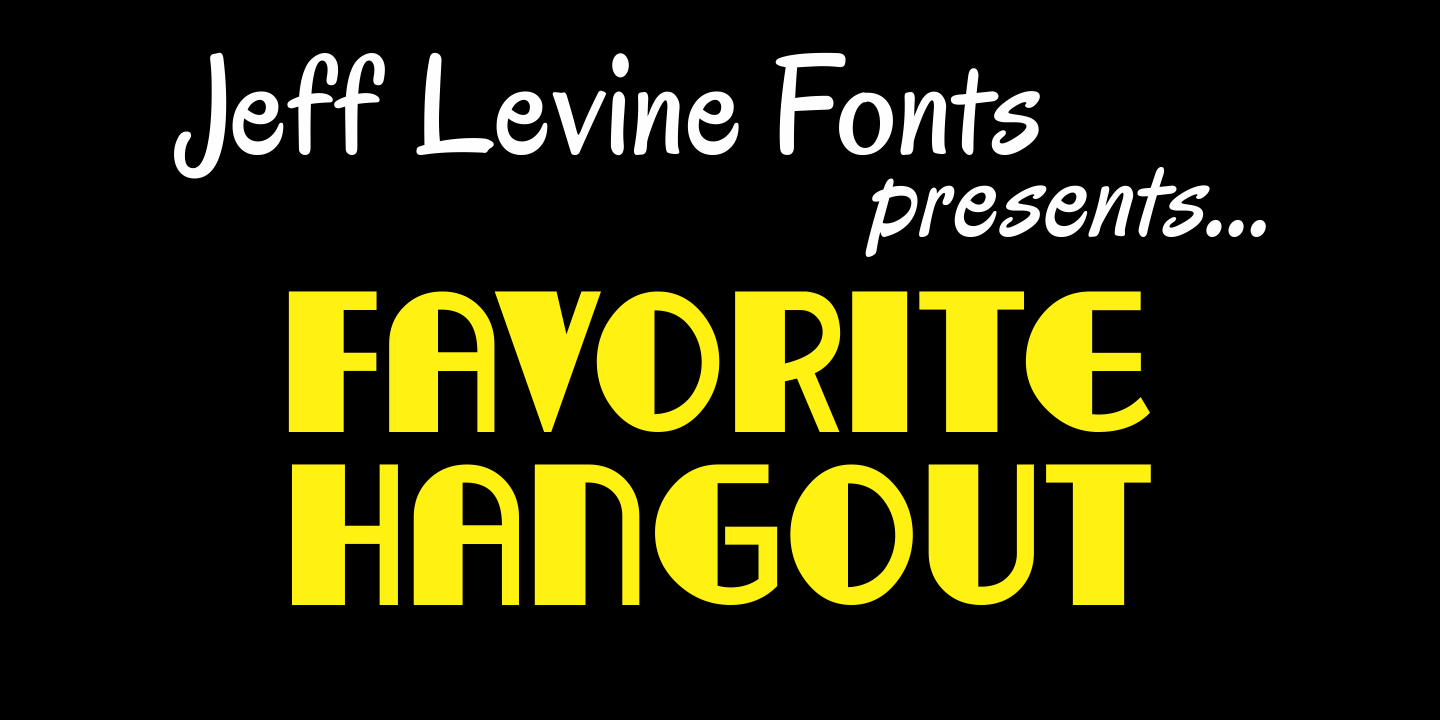
Favorite Hangout
A "thick and thin" line weight treatment is given to Jeff Levine's Hash and Beans JNL, providing a whole new take on the design - first inspired by a sign in an old photograph of a diner. Favorite Hangout JNL conjurs up memories of summer nights, drive-ins, your best guy or gal and sharing some tasty burgers and fries.